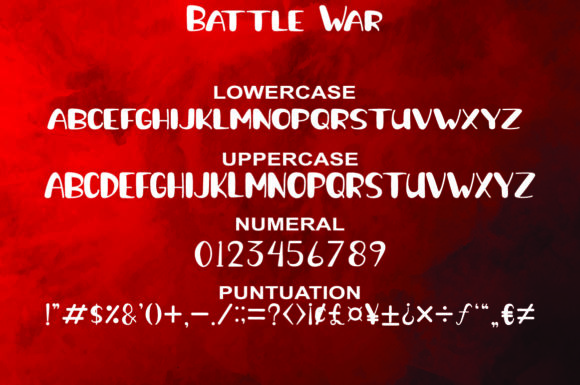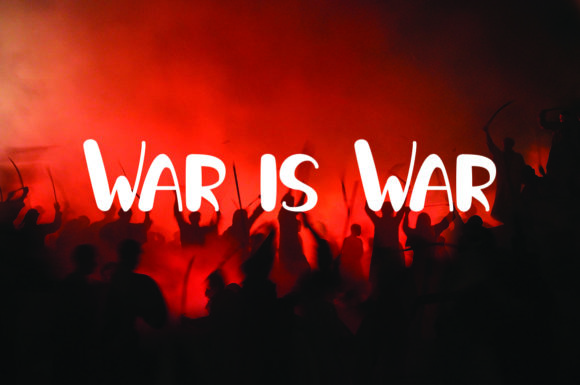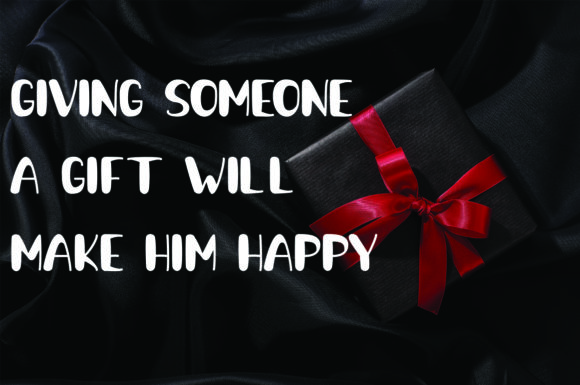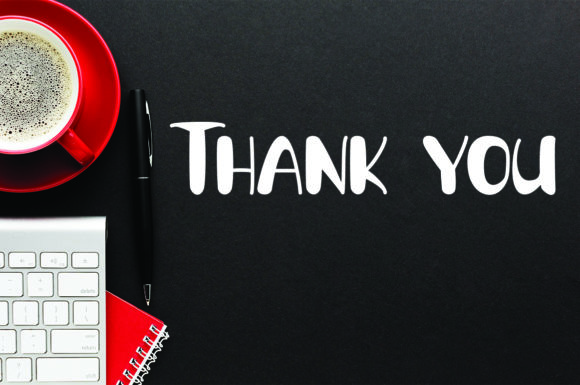
Unleash Your Creativity with Battle War Font: The Ultimate Display Font
Are you a designer, craftsperson, or DIY enthusiast looking for a font that can elevate your creative projects to new heights? Look no further than Battle War Font, a bold and authentic display font that’s taking the design world by storm. In this article, we’ll dive into the features, benefits, and uses of Battle War Font, and explore how it can become your go-to font for all your creative endeavors.
What is Battle War Font?
Battle War Font is a masterfully designed display font that’s perfect for making a statement. With its bold and authentic style, this font is sure to grab attention and leave a lasting impression. Whether you’re working on a logo, poster, or social media graphic, Battle War Font is the perfect choice for adding a touch of edginess and sophistication.
Key Features of Battle War Font
- Bold and Authentic Style: Battle War Font boasts a unique and eye-catching design that’s perfect for creating bold and striking visuals.
- High Versatility: This font is suitable for a wide range of creative projects, from logos and posters to social media graphics and more.
- Easily Readable: Despite its bold style, Battle War Font is surprisingly easy to read, making it perfect for use in both digital and print formats.
- Unique Character Set: With a wide range of characters and symbols, Battle War Font offers endless possibilities for creative expression.
Benefits of Using Battle War Font
So why choose Battle War Font for your next creative project? Here are just a few benefits of using this amazing display font:
- Adds Edge and Sophistication: Battle War Font brings a touch of edginess and sophistication to any design, making it perfect for brands and individuals looking to stand out.
- Enhances Creativity: With its unique and bold style, Battle War Font inspires creativity and encourages designers to push the boundaries of their imagination.
- Perfect for Display Text: Whether you’re creating a logo, headline, or title, Battle War Font is the perfect choice for display text that demands attention.
Who Can Benefit from Battle War Font?
Battle War Font is perfect for a wide range of designers, crafters, and DIY enthusiasts, including:
- Graphic Designers: Add a touch of boldness and sophistication to your logos, posters, and social media graphics.
- Crafters and DIY Enthusiasts: Use Battle War Font to create eye-catching titles and headings for your handmade products, blog posts, and social media updates.
- Marketing and Advertising Professionals: Create attention-grabbing headlines and display text that drives engagement and conversions.
How to Use Battle War Font
Using Battle War Font is easy! Here are a few tips to get you started:
- Pair with Other Fonts: Combine Battle War Font with other fonts to create a unique and visually appealing typography.
- Experiment with Colors: Try out different colors and gradients to add depth and interest to your design.
- Play with Size and Layout: Experiment with different sizes and layouts to create a bold and striking visual effect.
In conclusion, Battle War Font is a bold and authentic display font that’s perfect for designers, crafters, and DIY enthusiasts looking to elevate their creative projects. With its unique style, high versatility, and easily readable design, this font has the potential to bring each of your creative ideas to the highest level. So why wait? Download Battle War Font today and unleash your creativity!